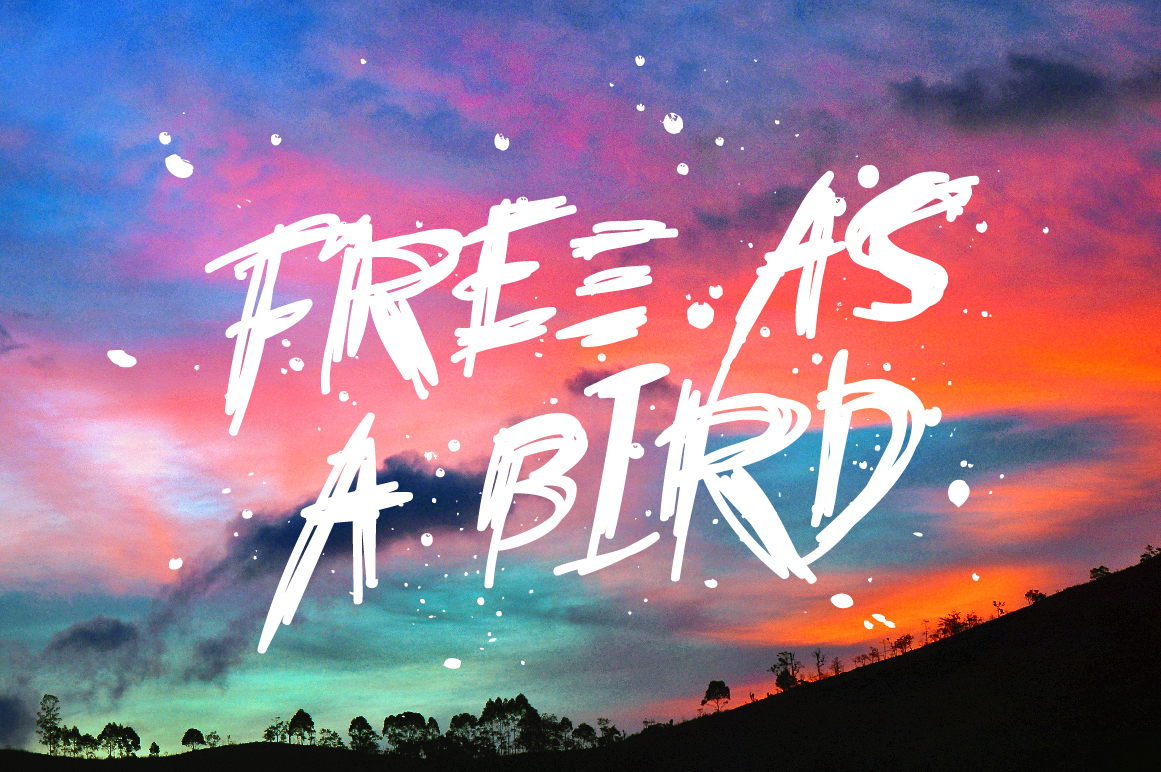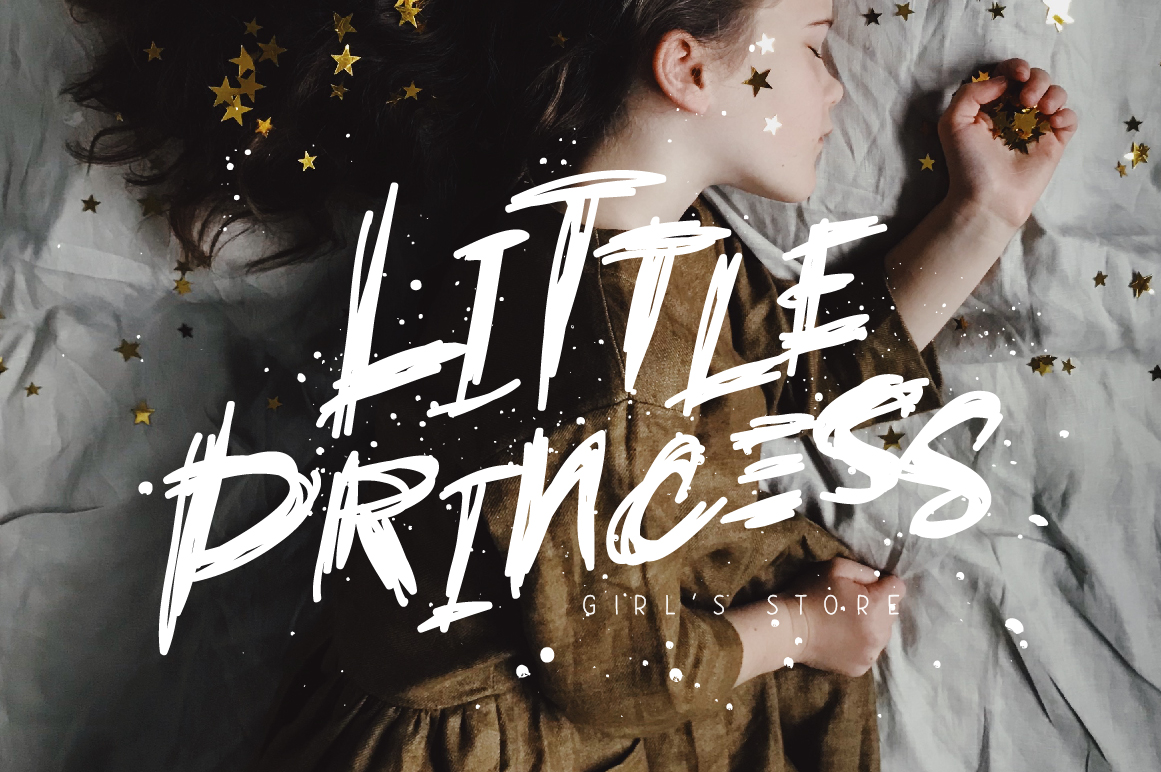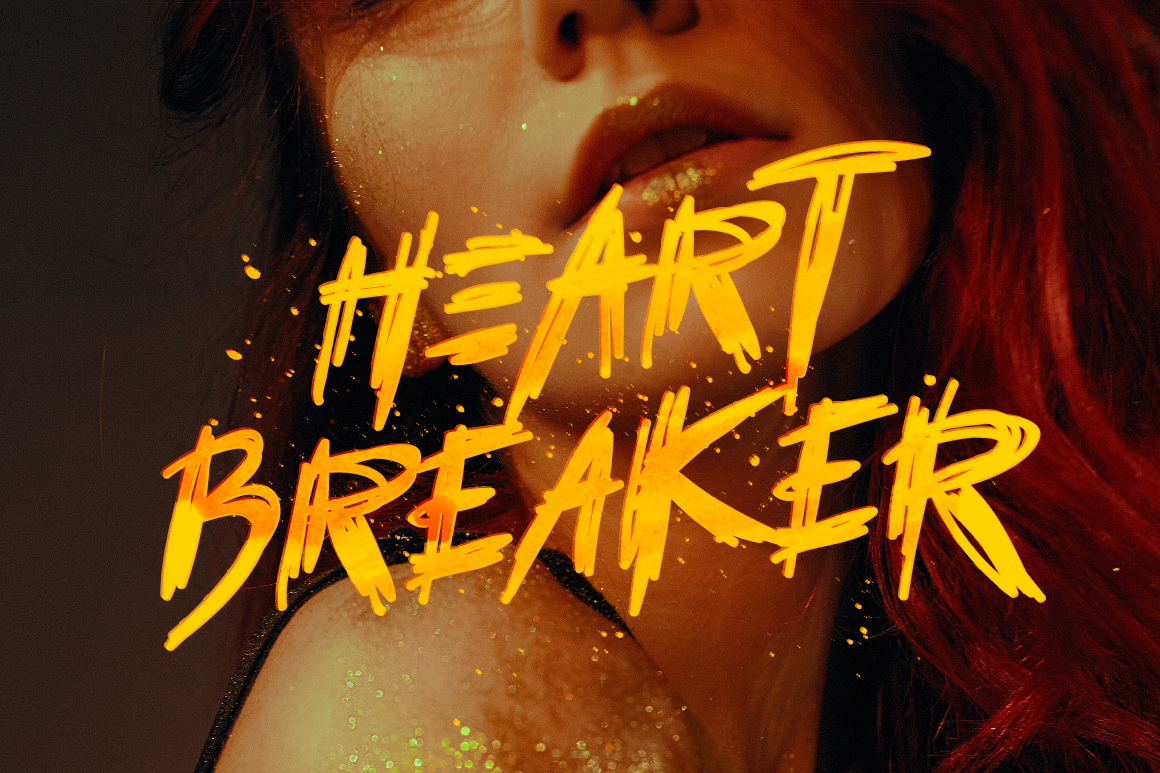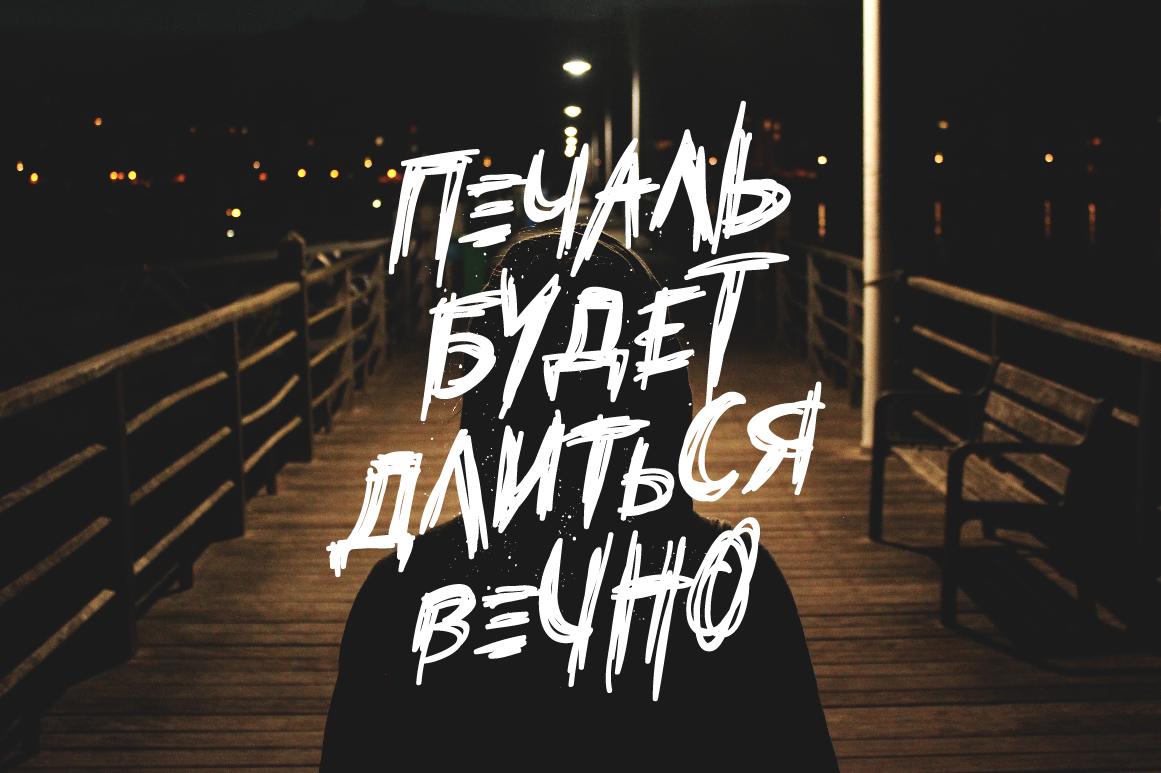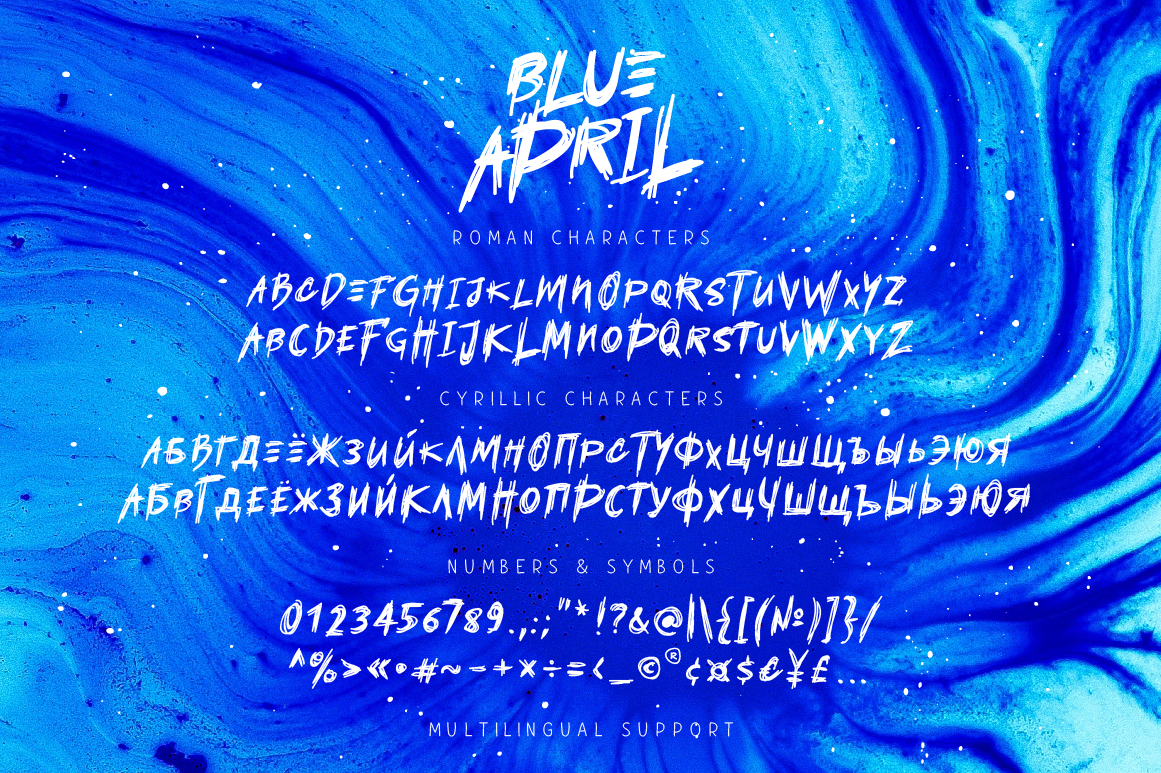
The Blue April Font: A Fun and Edgy Addition to Your Design Arsenal
I’ll never forget the time I was working on a project for a client who wanted a bold, eye-catching font to capture the essence of their new product launch. I scoured the internet for the perfect font, but nothing seemed quite right. That was until I stumbled upon the Blue April font. This fun and textured all-caps font was exactly what I needed to add some edginess and urgency to my design. In this article, I’ll share my experience with Blue April, its features, and how to make the most of it in your designs.
An Honest Review of Blue April
- ✨ Unique Texture: Blue April has a distinctive texture that gives it a rough, edgy feel. It’s perfect for adding some character to your designs.
- ✅ All-Caps Versatility: This font is designed specifically for all-caps text, making it ideal for headlines and displays.
- 💥 Attention-Grabbing: Blue April is sure to grab attention with its bold and edgy appearance.
While Blue April is an excellent font, there are a few things to keep in mind:
- 🤔 Limited Use Cases: Due to its textured nature and all-caps design, Blue April might not be the best choice for body text or more formal designs.
- ⚠️ Legibility at Small Sizes: As with many textured fonts, Blue April may become less legible at smaller font sizes.
The Story Behind Blue April
Blue April was designed by a young font designer who wanted to create a font that captured the essence of urban street art. Inspired by graffiti and stencil art, Blue April was born as a fun and edgy font that’s perfect for adding some character to your designs.
| Font Name | Blue April Font |
| Author | ChekArt |
Q: What is Blue April font?
A: Blue April is a fun and textured all-caps font designed for adding some edginess and urgency to your designs.
Q: What is Blue April font used for?
A: Blue April is perfect for headlines, displays, and any design that needs a bold and attention-grabbing font.